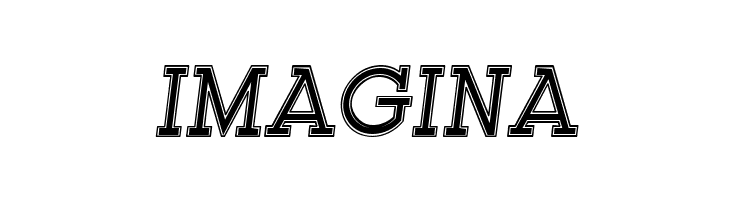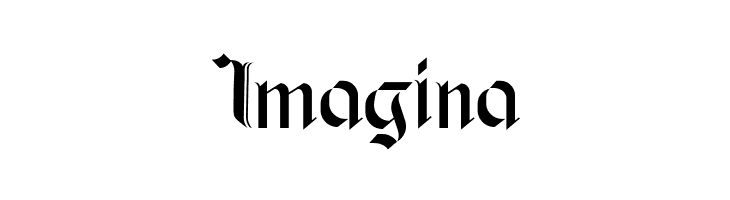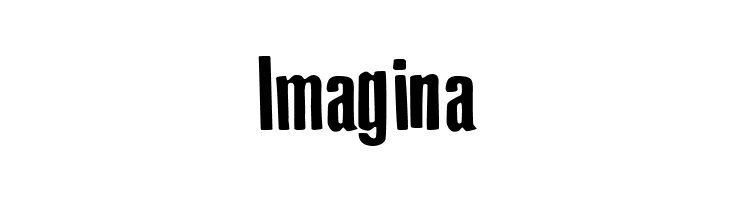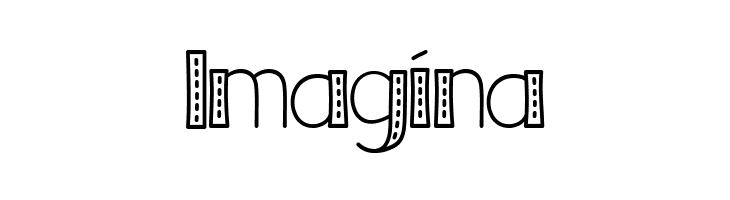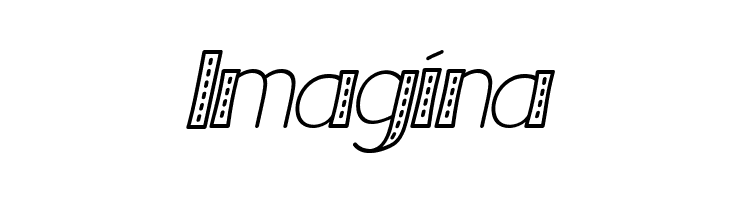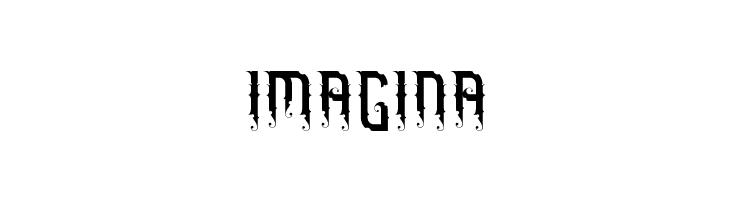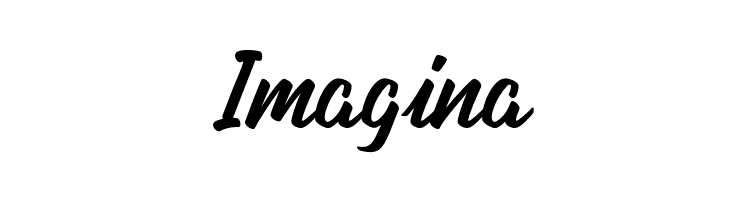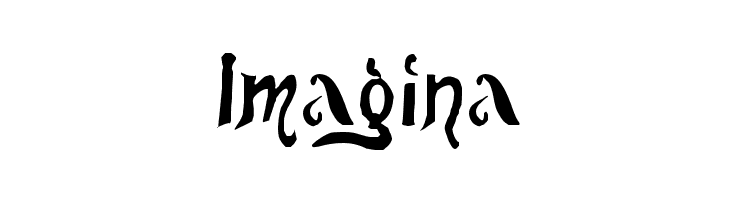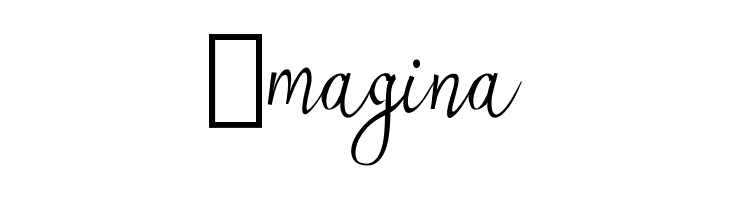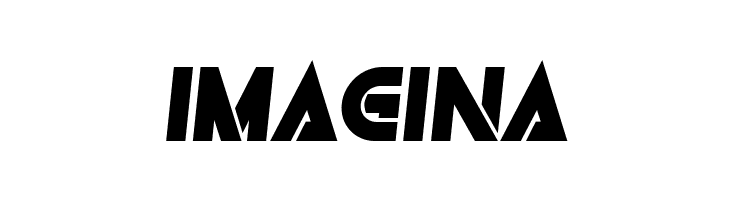
A clean, modern typeface with uniform strokes and balanced spacing.
A bold, geometric font with stencil-like cutouts and an industrial feel.
A bold, geometric font with a 3D effect and consistent rounded edges.
A bold, italicized font with a strong, dynamic presence and shadow effect.
A bold, italicized font with a modern and dynamic style, featuring outlined characters.
A modern, geometric monospaced font with rounded edges and a futuristic style.
A bold, outlined font with a modern, playful aesthetic.
A modern, geometric font with a hollow, outlined style.
A dynamic and flowing script font with elegant cursive letterforms.
A lively and expressive handwritten font with fluid, cursive letterforms.
A playful, hand-drawn font with a whimsical and casual style.
A tall, narrow, and modern font with a sleek and consistent design.
A classic serif font with elegant strokes and balanced design.
A whimsical, decorative font with bold strokes and intricate details, reminiscent of vintage circus style.
A decorative and whimsical font with vintage circus-inspired details.
An elegant script font with ornate swirls and flowing design.
A bold, distressed font with a vintage, industrial look.
A graceful script font with flowing, connected strokes and elegant curves.
A fluid and elegant script font with smooth, flowing lines and cursive letterforms.
An ornate Blackletter font with intricate detailing and a medieval aesthetic.
A bold, geometric stencil-style font with sharp angles and clean lines.
A bold, playful font with a hand-drawn, graffiti-like style.
A bold, dynamic script font with interconnected characters and expressive strokes.
A bold, playful script font with a handwritten style.
A playful and expressive handwritten font with bold, slanted characters.